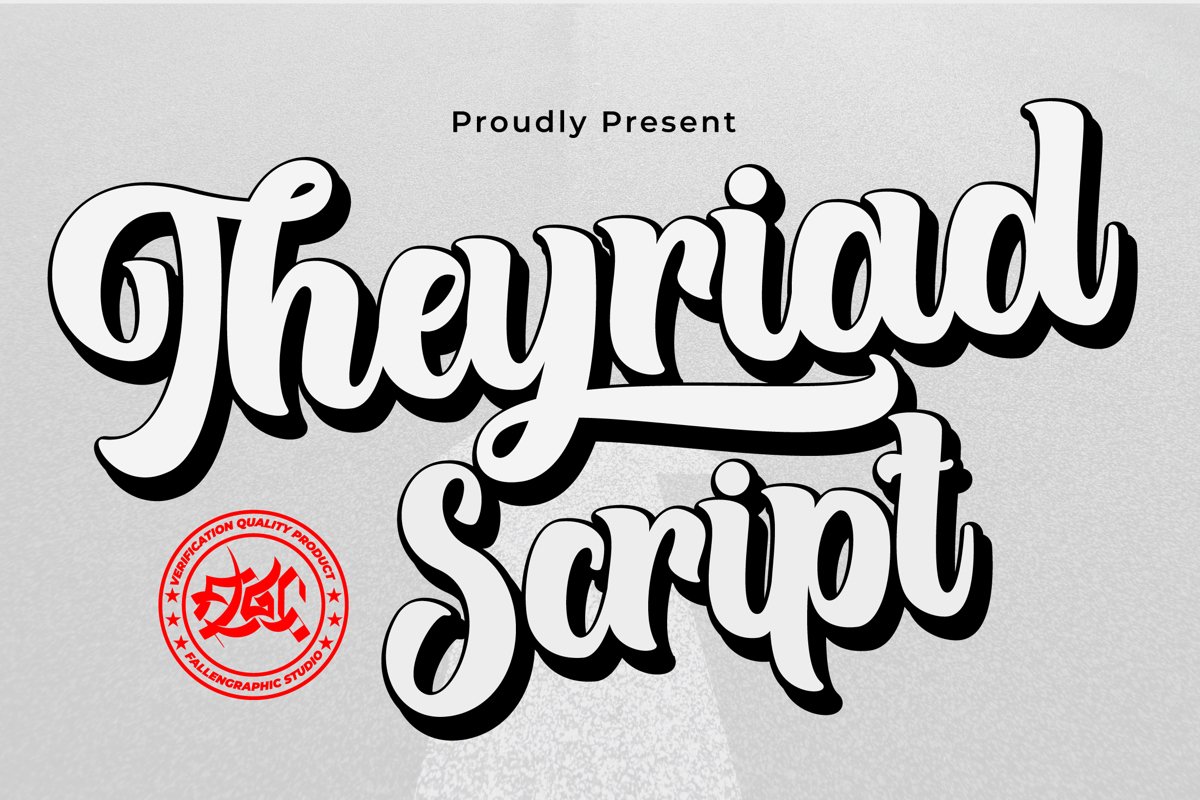
Theyriad Script
Theyriad Script  is the great choice for watermark on photography logo design, quotes, album cover, business card, and many other design project. From business cards to photo watermarks, Theyriad Script is here to elevate your work to the highest level.